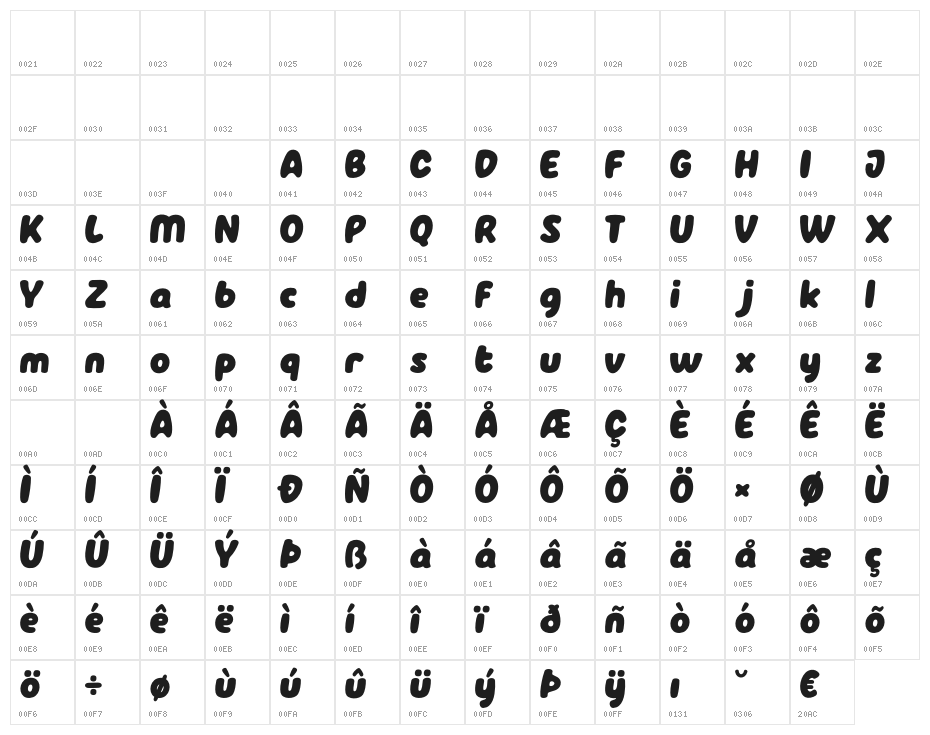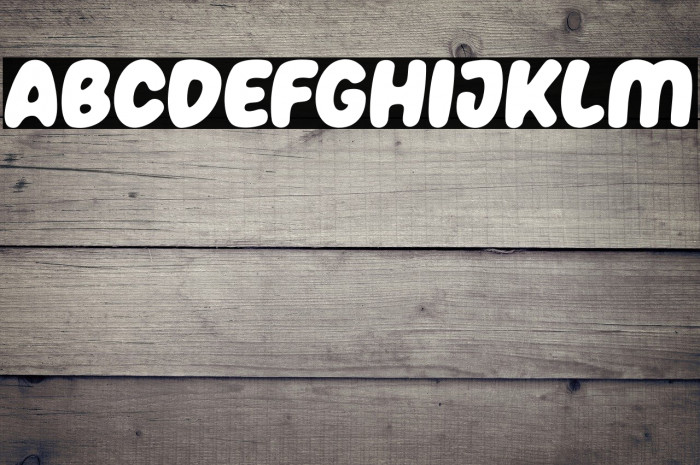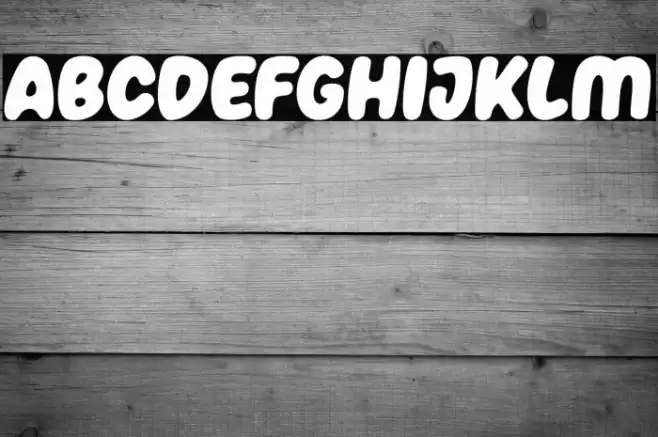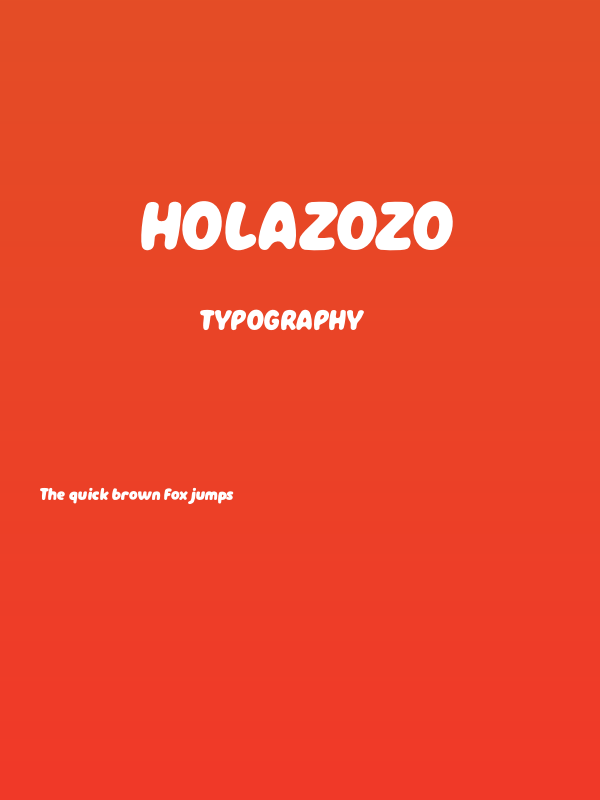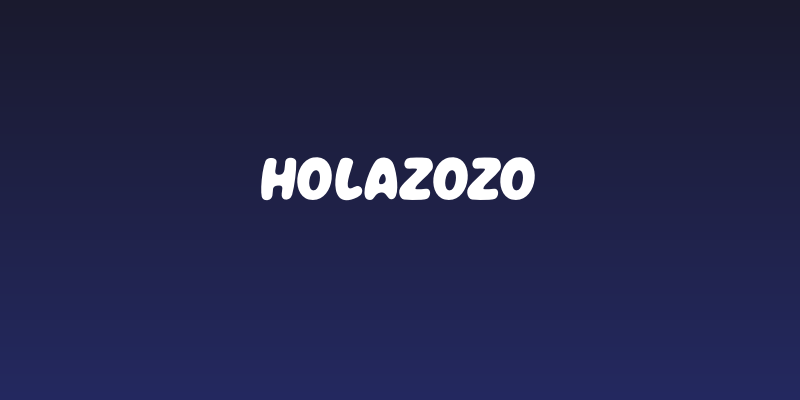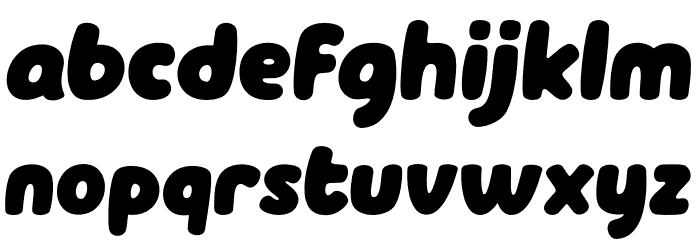
HolaZozo Font
HolaZozo Description
This playful and bold font features rounded, bubbly characters that exude a sense of fun and approachability. The thick strokes and smooth curves give it a friendly and informal appearance, making it ideal for designs that aim to capture a youthful or whimsical vibe. Each letter maintains a consistent weight, contributing to a cohesive and harmonious look across the alphabet. The font's style is reminiscent of hand-drawn lettering, adding a personal touch to any project. Its unique character shapes make it stand out, while the uniformity in stroke width ensures readability and balance.
| Proposed Projects | Ideal for children's books, playful branding, party invitations, and casual social media graphics. |